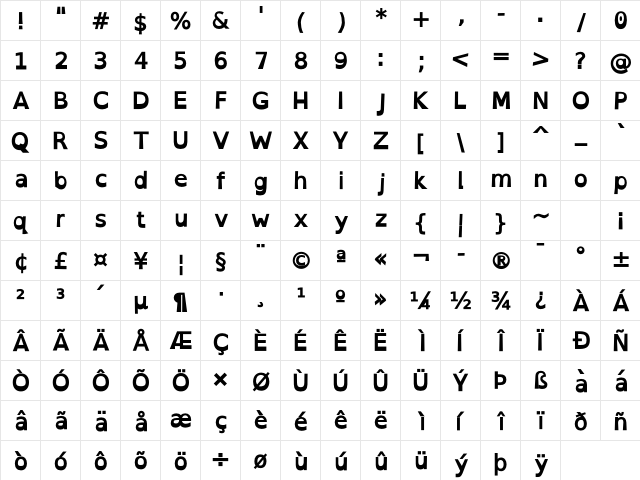
OpenDyslexic Bold
| Designer | Abelardo Gonzalez |
Design Context for OpenDyslexic Typeface
OpenDyslexic is a composed and adaptable typeface that performs quietly and consistently across a wide range of design contexts. The heavy weight commands attention and anchors typographic hierarchies.
Pro Tip: Pair OpenDyslexic with a font of contrasting weight or personality to build a more expressive typographic hierarchy.